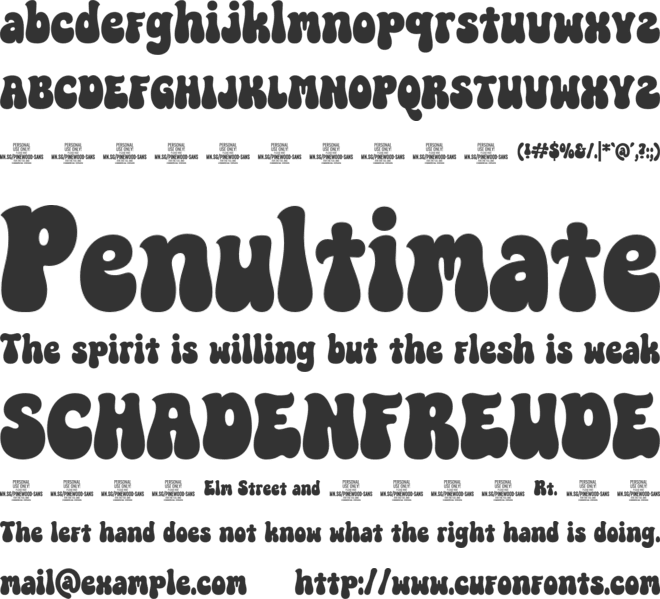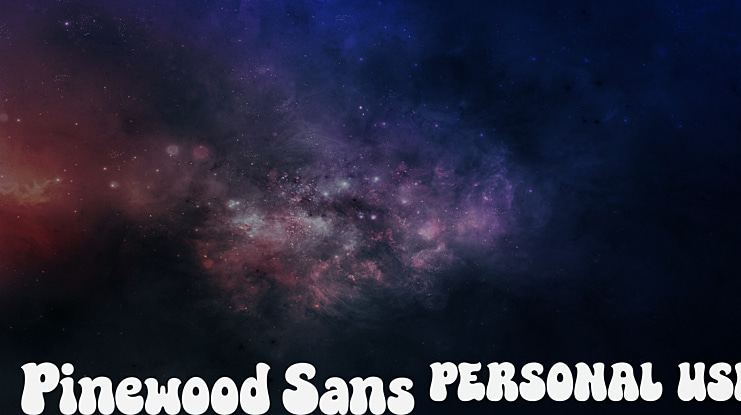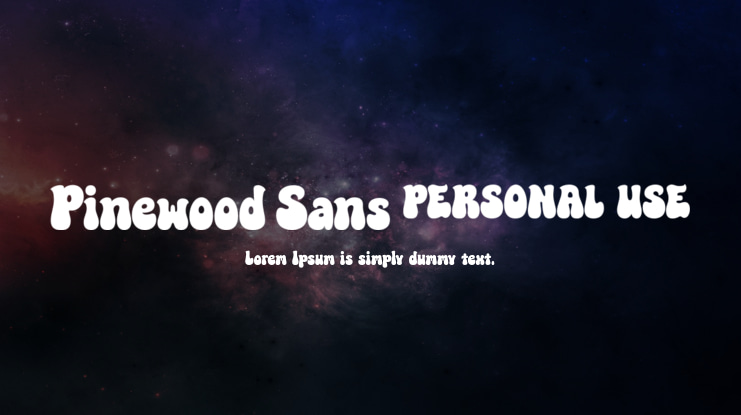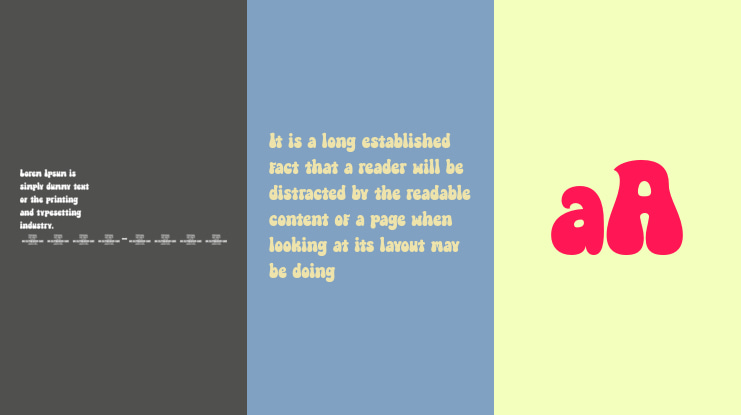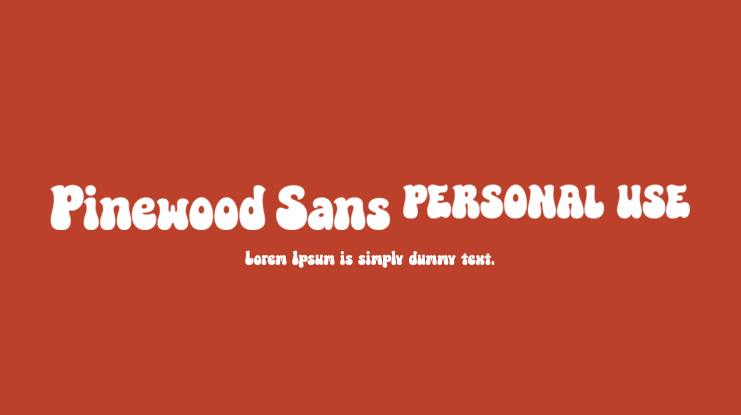
Pinewood Sans PERSONAL USE Font
Pinewood Sans is a funky, bold, and playful typeface that encapsulates the retro, hippie spirit with a touch of graffiti and childish charm. This unique font brings a sense of fun and whimsy to your designs.